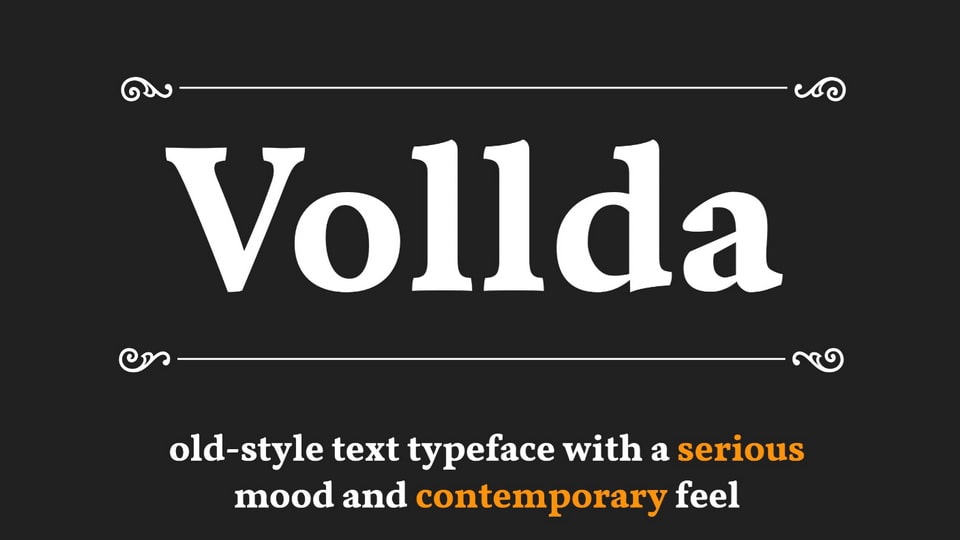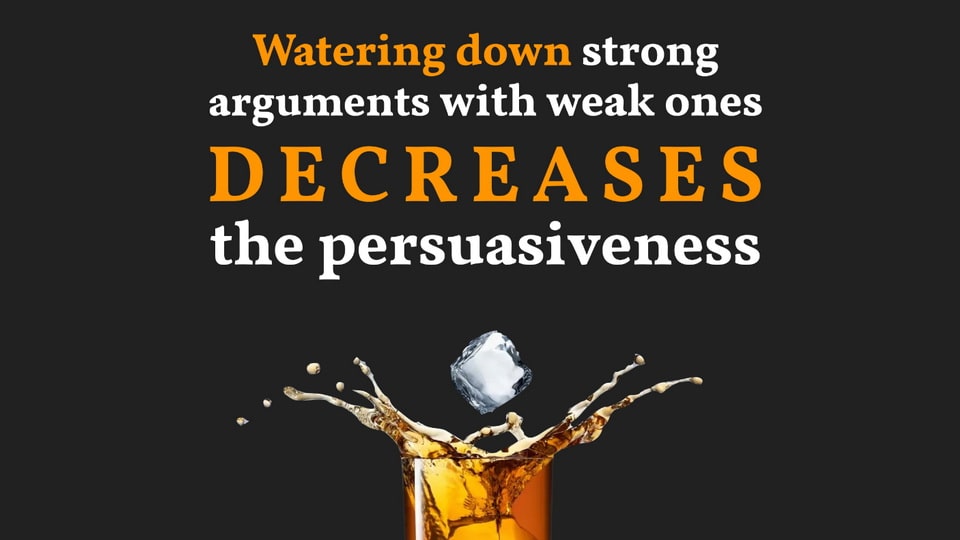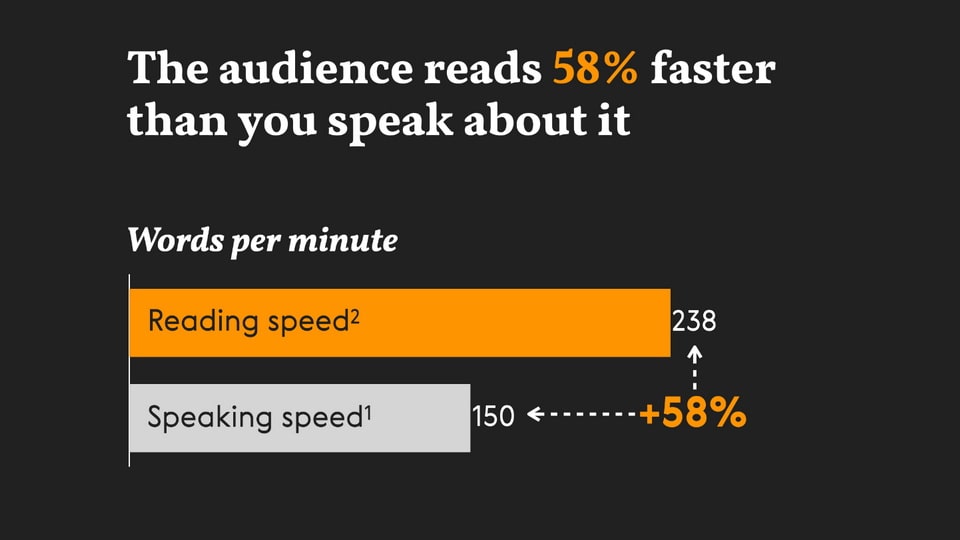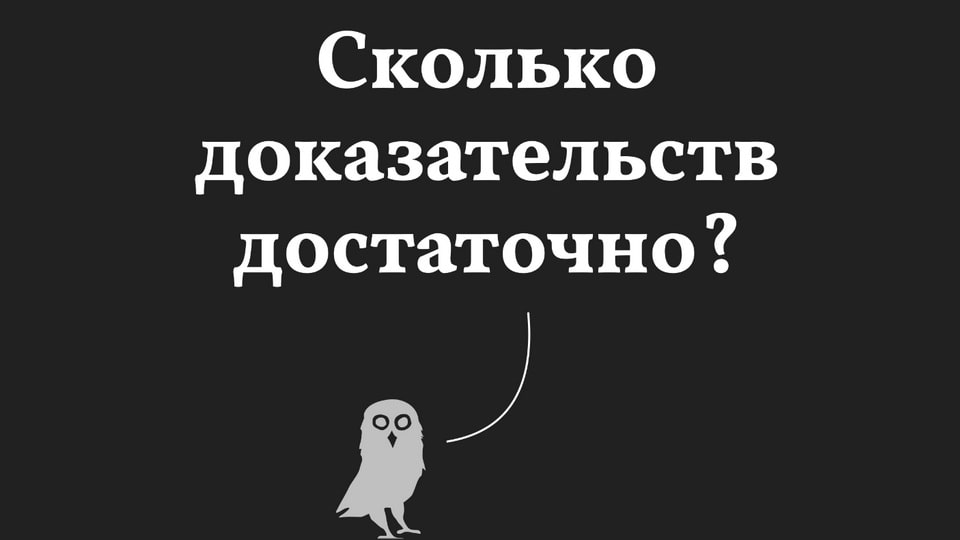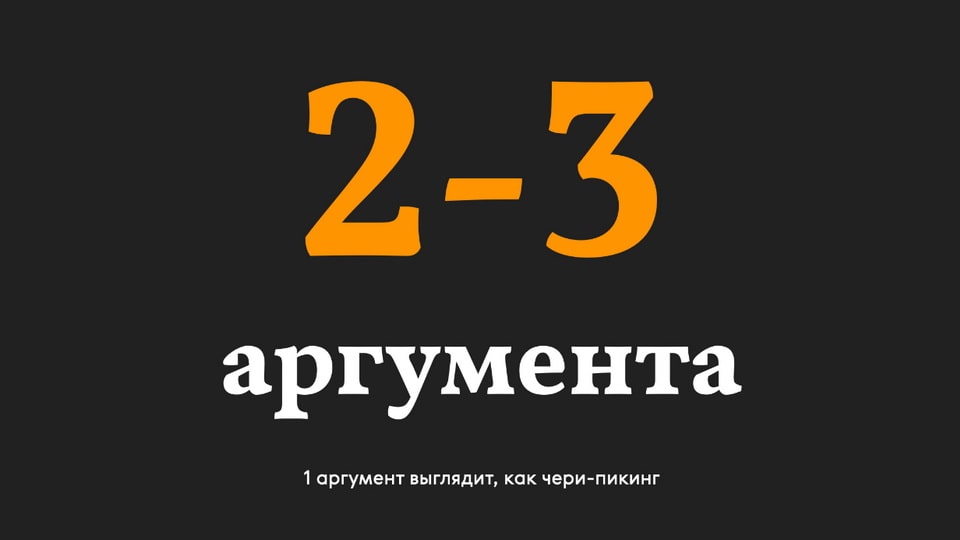
Vollda is an old-style text typeface with a serious mood and contemporary feel. The font is based on the Vollkorn typeface with a lot of redesigned symbols.
Why the heck Vollda if we have a high-quality Vollkorn?
- The original “a” of Vollkorn looked kinda playful and too bulky for my needs. So to add a more serious mood I redesigned “a” in a slight Granjon style. Obviously, it led to editing “u,d,b,p,q” and then “n,m,h”.
- Cyrillic “Кк, Жж, Яя” looked a way too historic (poluustav-ish) so I redesigned them to appear more contemporary and in the same time having more resemblance to the latin original “K, R”
- Thirdly, cyrillic “б,ф” looked okay, but the their skeletons were a bit outdated, so I tweaked them a bit to get that modern feel.
- And finally, I deleted internal rounded corners in Cyrillic “Пп, Дд, Лл, Цц, Щщ, Шш”, because those rounded corners might have appeared only during some old letter press printing. That is not what you get when you try to write them with an 6.0mm nib or print them on a laser printer.
The graceful serifs of Vollda font back to traditional typographic design, evoking a sense of historical richness. Each character is crafted with meticulous attention to detail, ensuring a balance between the classical elegance of old-style serifs and a subtle contemporary flair.
With a timeless demeanor and refined details, Vollda font exudes a sense of authority and sophistication while maintaining a modern sensibility. The subtle incorporation of contemporary design elements ensures that this serif typeface remains relevant and adaptable for a variety of applications, from editorial layouts to corporate branding.